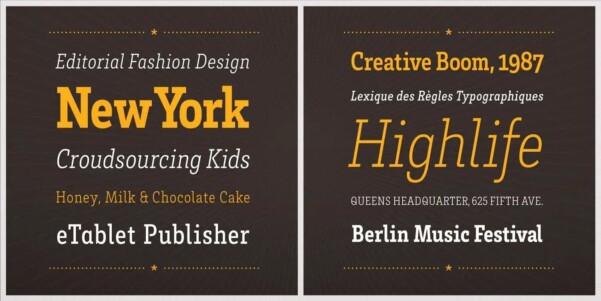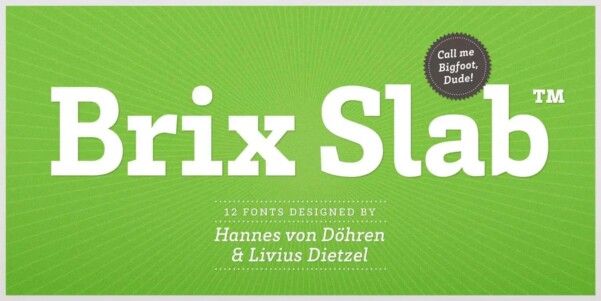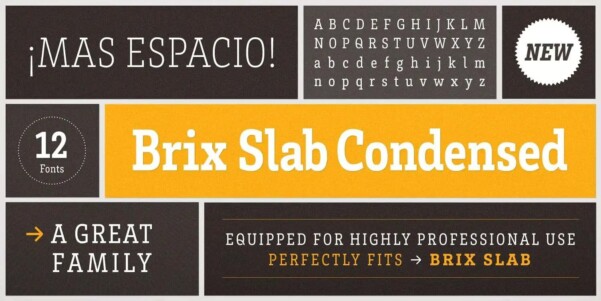
Brix Slab Font
Brix Slab Font and Brix Slab Condensed is an extended family of 24 fonts. It was designed by Hannes von Döhren & Livius Dietzel in 2011. Brix Slab is a robust slab serif family with subtle details. It’s optimized for longer texts and highly readable in small sizes. BrixSlab is intended to be used in applications like magazines, newspapers and digital devices. It also works great as a corporate typeface. With more than 700 glyphs in each font, it is equipped for complex, professional typography. As an exclusively OpenType release, these fonts feature small caps, five variations of numerals, arrows and an extended character set to support Central and Eastern European as well as Western European languages.